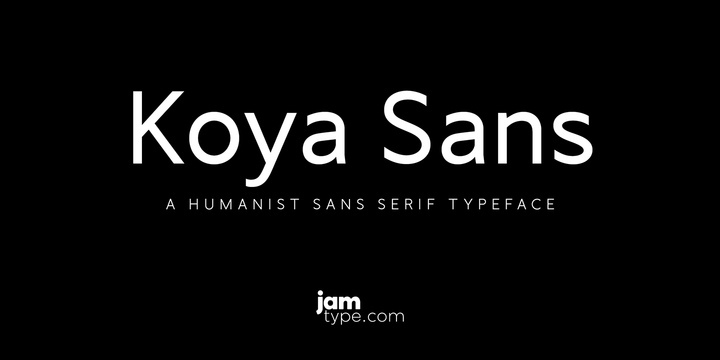
Koya Sans Font
Koya Sans Font is perfect for modern branding projects, website headers, logo design, business cards, promotional materials, social media graphics, packaging design, magazine layouts, poster creation, and digital advertising campaigns.
What makes Koya Sans Font exciting is its contemporary geometric structure combined with subtle humanistic touches that create exceptional readability across all platforms. This versatile typeface offers clean lines and sophisticated letterforms that enhance any design project with professional elegance and modern appeal.
Koya Sans Font family includes multiple weights ranging from Light to Bold, with corresponding italic variations, providing designers with comprehensive typographic flexibility for hierarchical text organization and creative expression.
Koya Sans Font represents a perfect balance between minimalist aesthetics and functional typography. This sans-serif masterpiece delivers outstanding performance in both digital and print applications, making it an essential addition to any designer's font library. The carefully crafted character set ensures consistent visual harmony while maintaining excellent legibility at various sizes.
Professional designers worldwide appreciate Koya Sans Font Free Download for its versatility in corporate identity systems, editorial design, and user interface applications. The font's geometric foundation provides stability and trust, while its subtle curves add warmth and approachability to brand communications.
The extensive character support includes Latin alphabets, numerals, punctuation marks, and special symbols, making Koya Sans Font suitable for multilingual projects and international branding initiatives. Its OpenType features enhance typographic possibilities with advanced ligatures and spacing options.
Koya Sans Font excels in responsive web design environments where consistent rendering across different devices and browsers is crucial. The font's optimized hinting ensures crisp display quality on high-resolution screens and maintains readability on smaller mobile displays.
Whether you're designing minimalist websites, creating sophisticated brand identities, or developing comprehensive design systems, Koya Sans Font provides the typographic foundation needed for successful visual communication. Its neutral yet distinctive character makes it suitable for various industries including technology, finance, healthcare, and creative services.